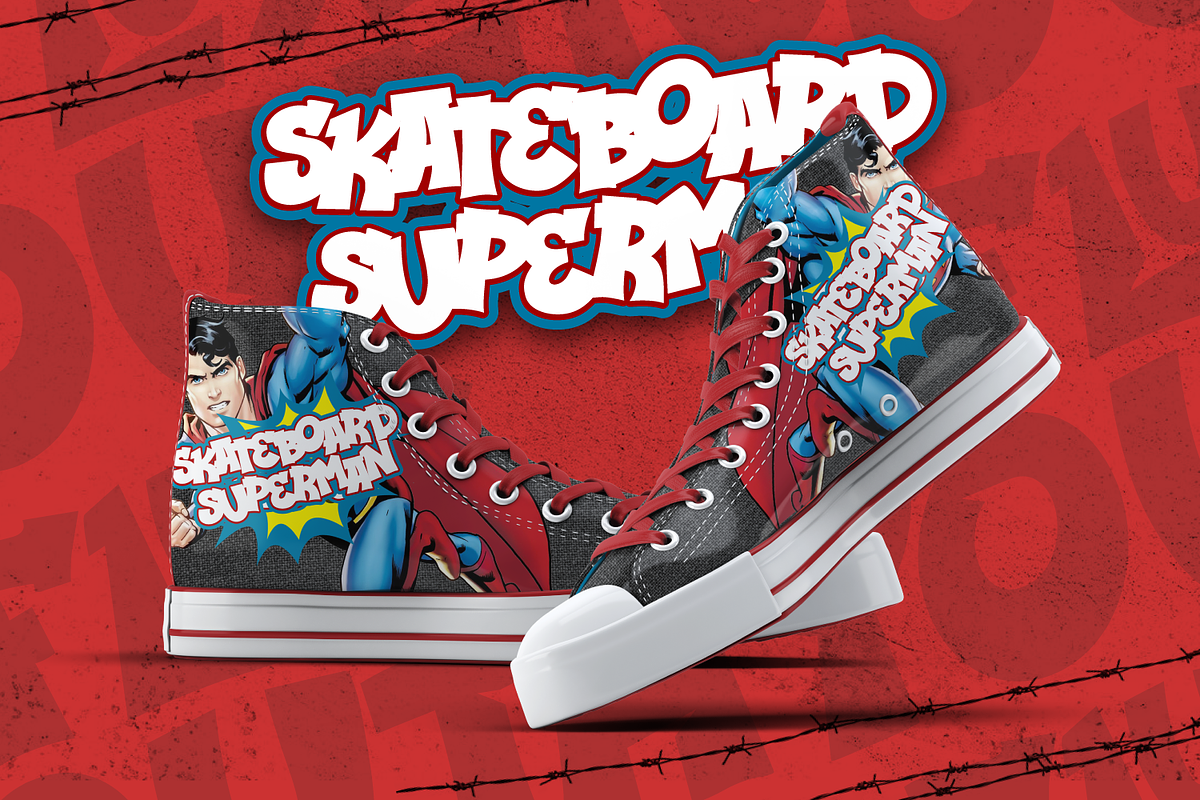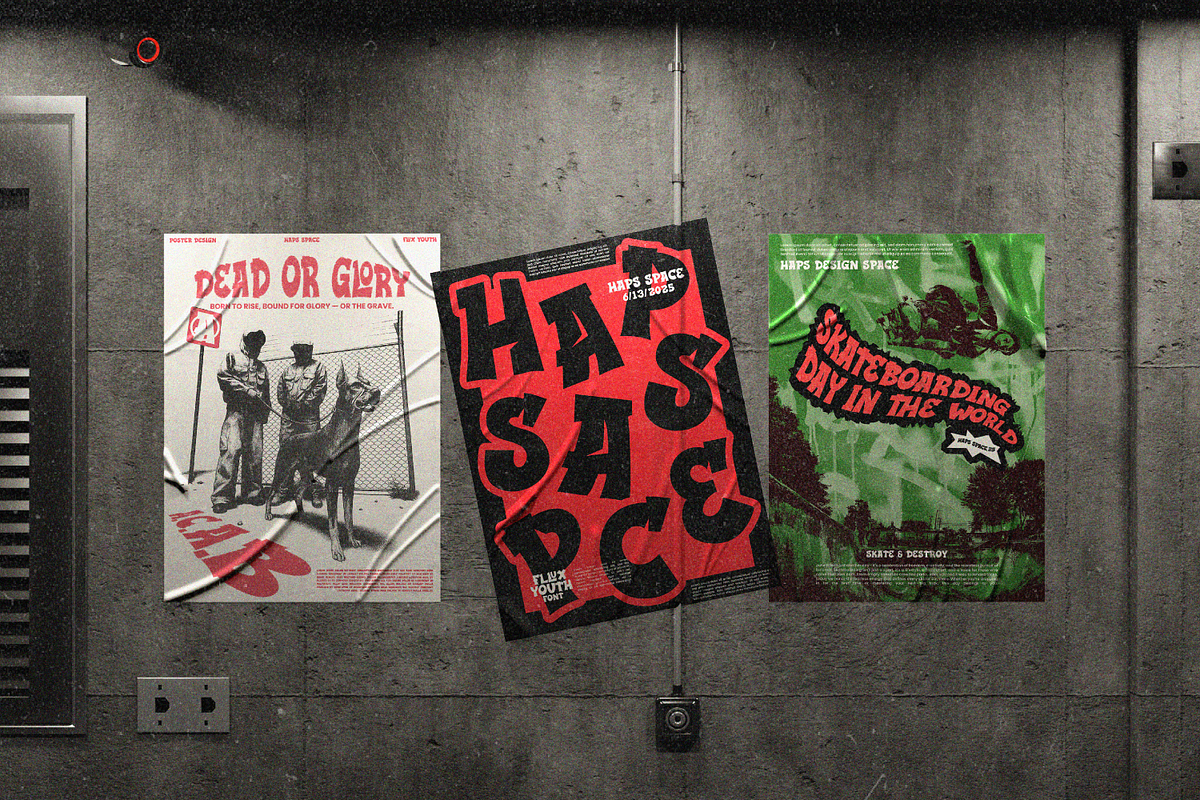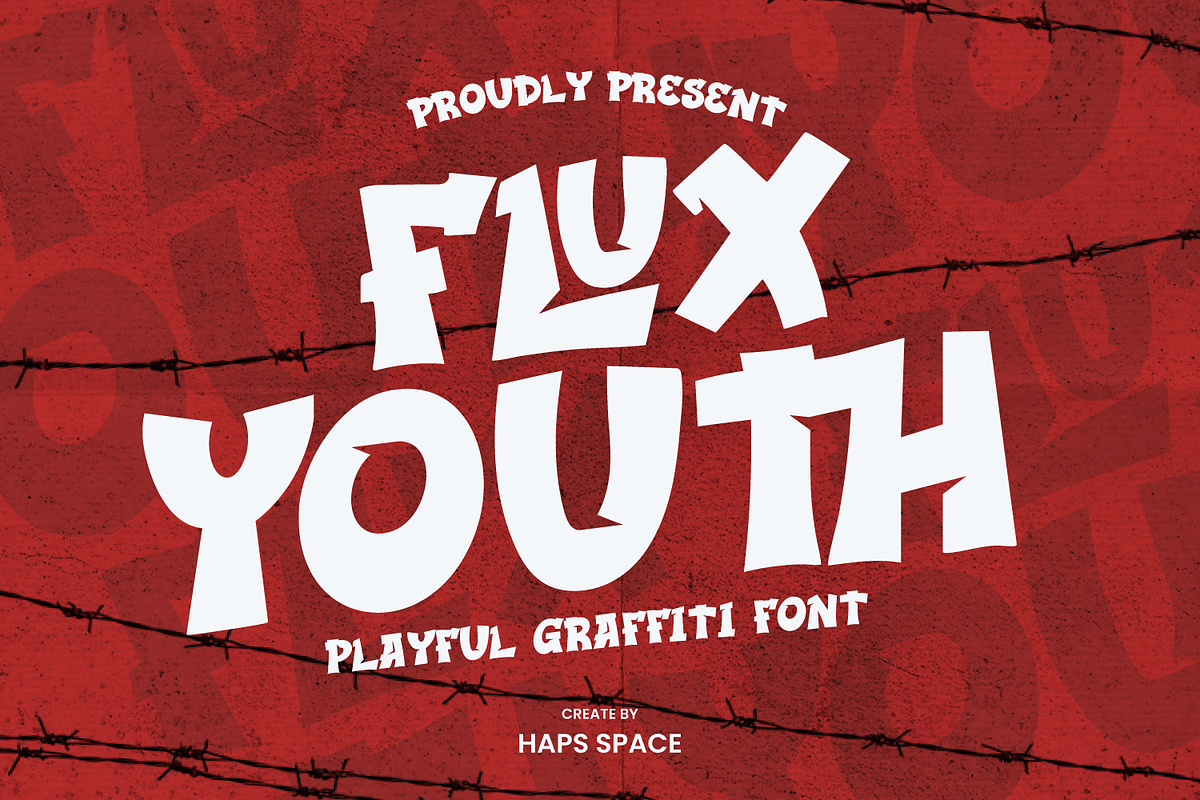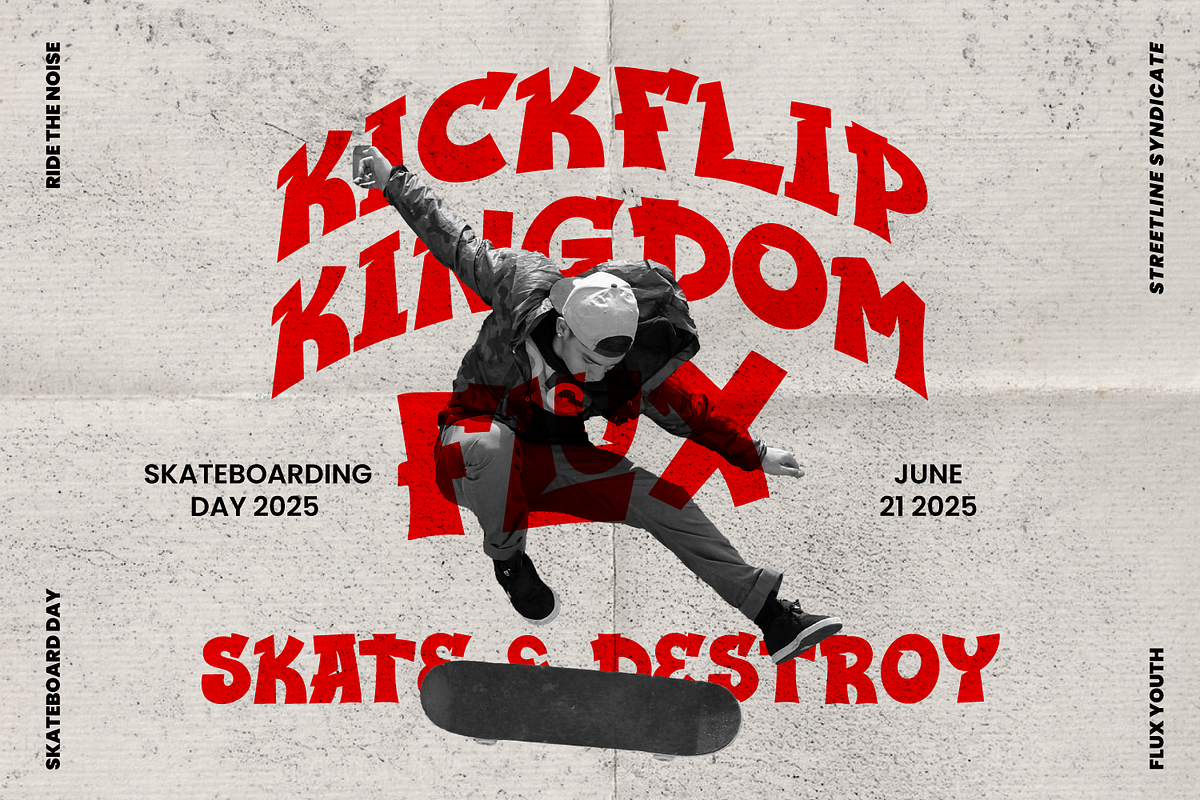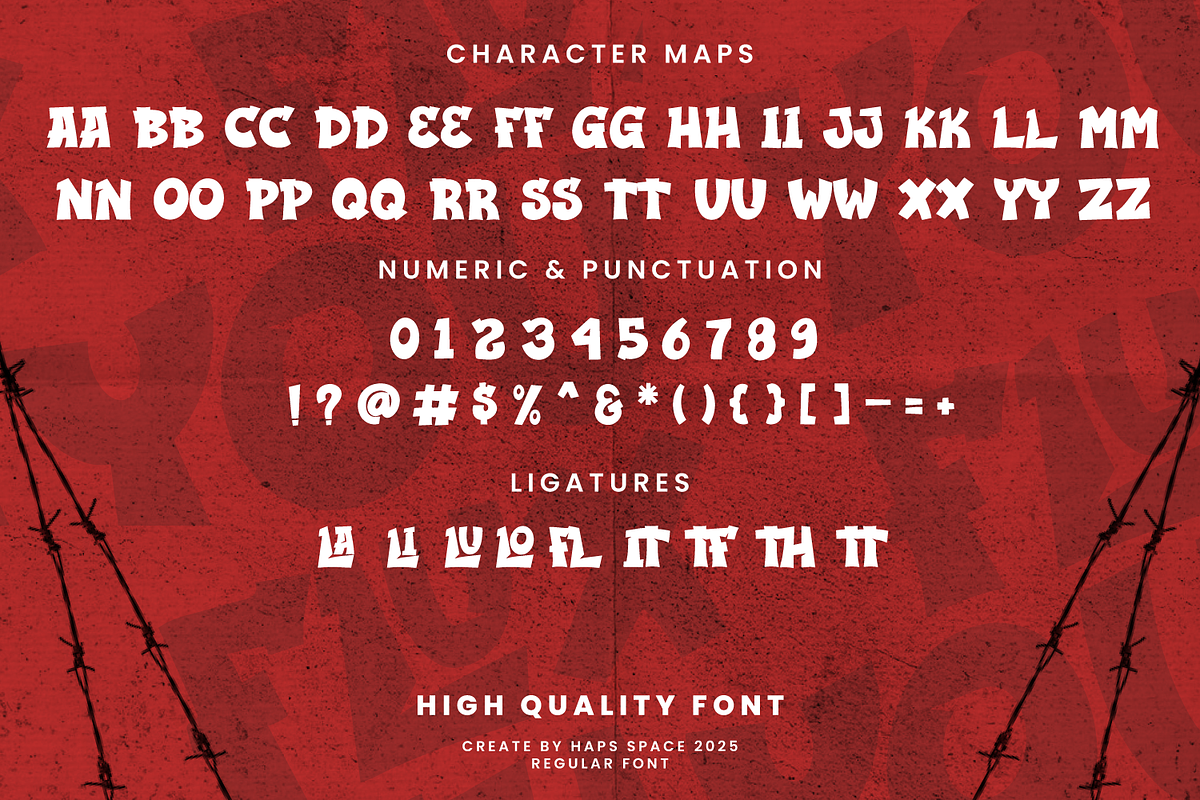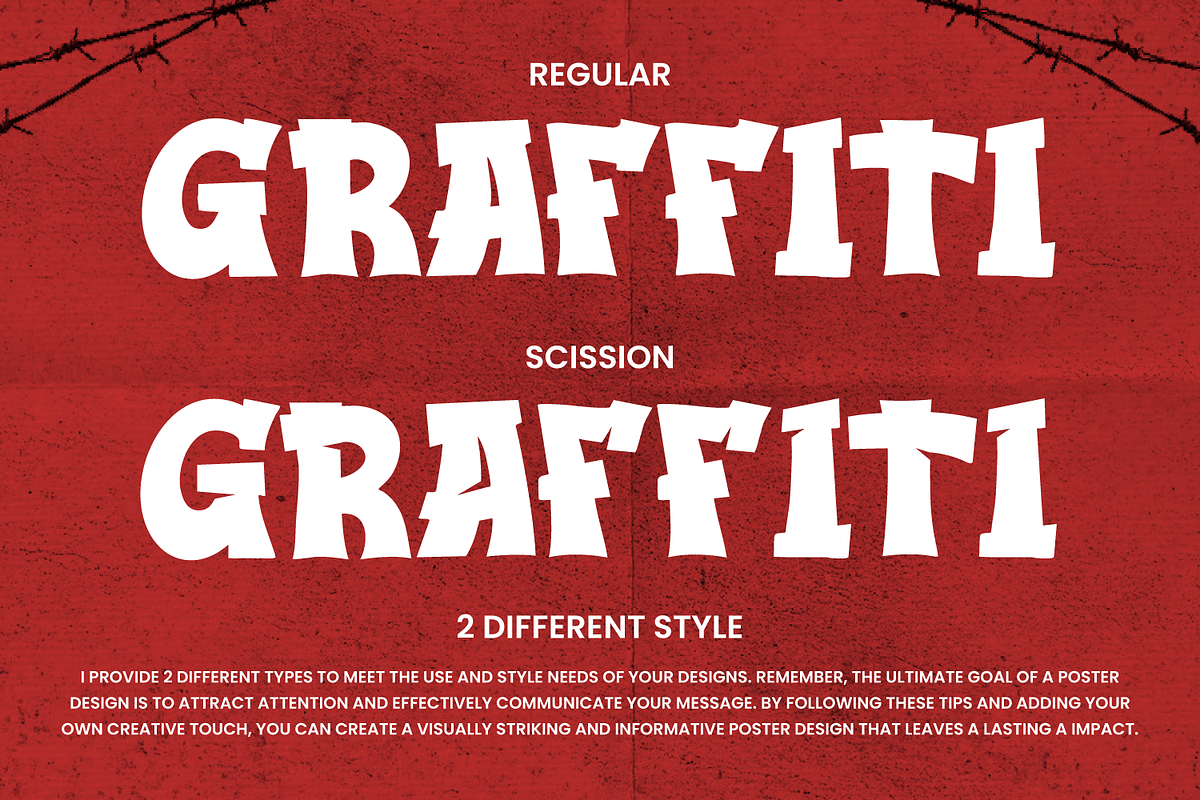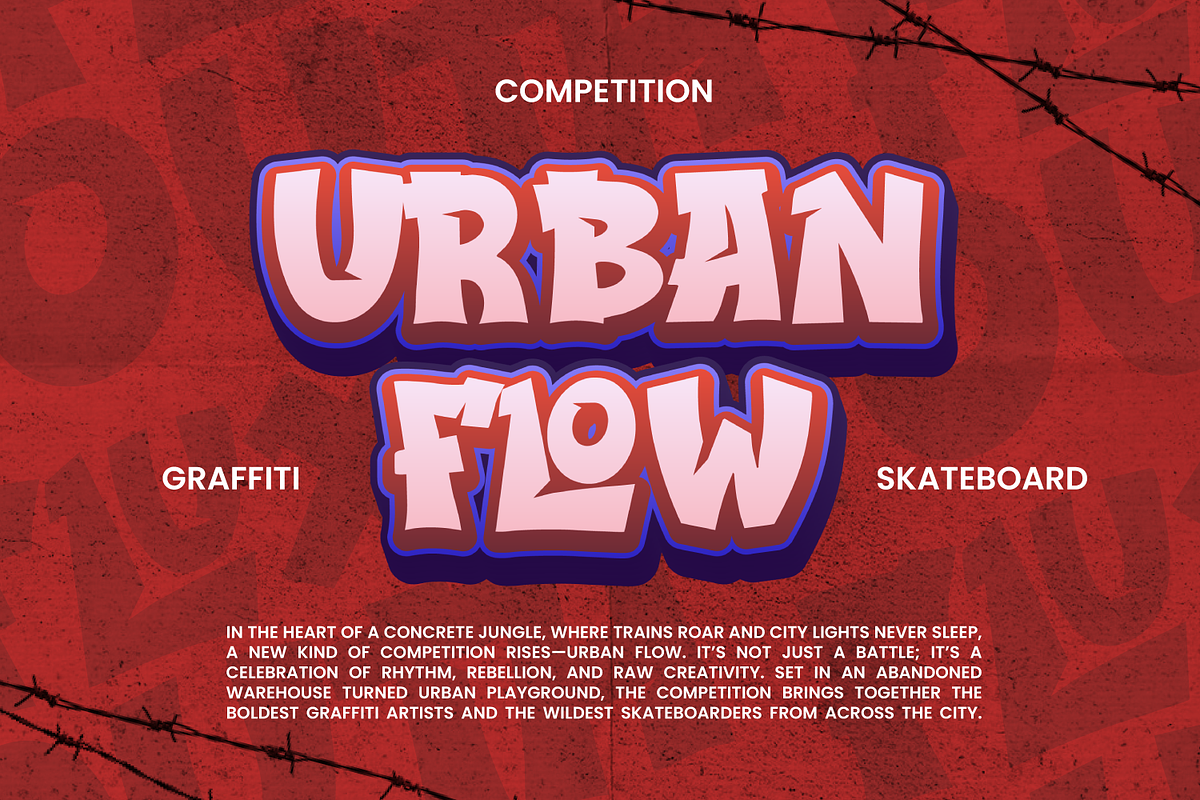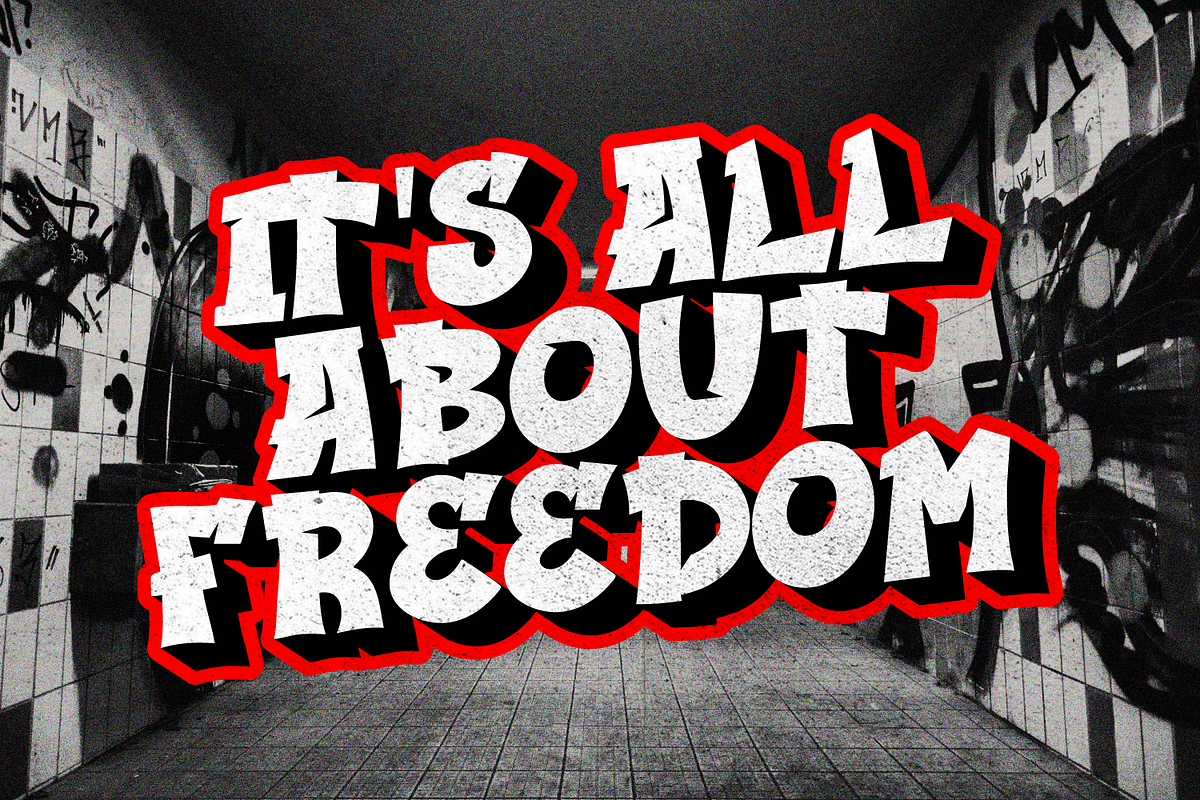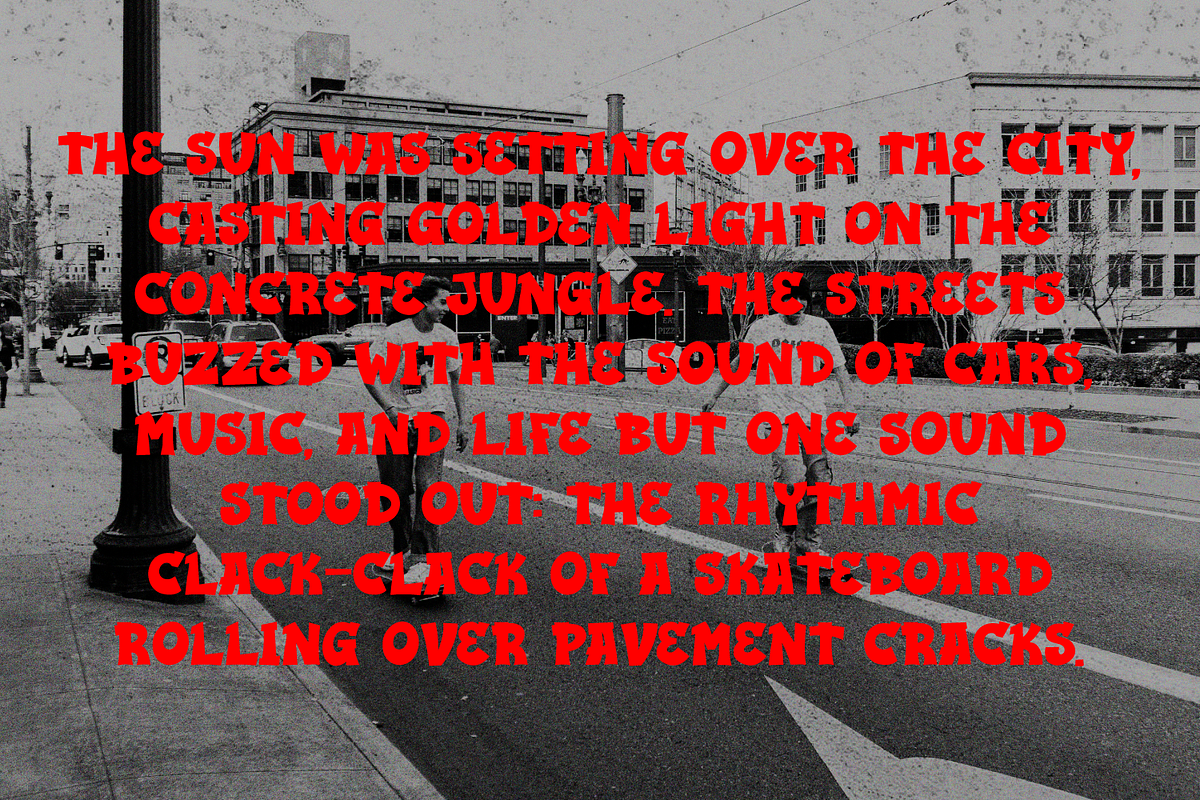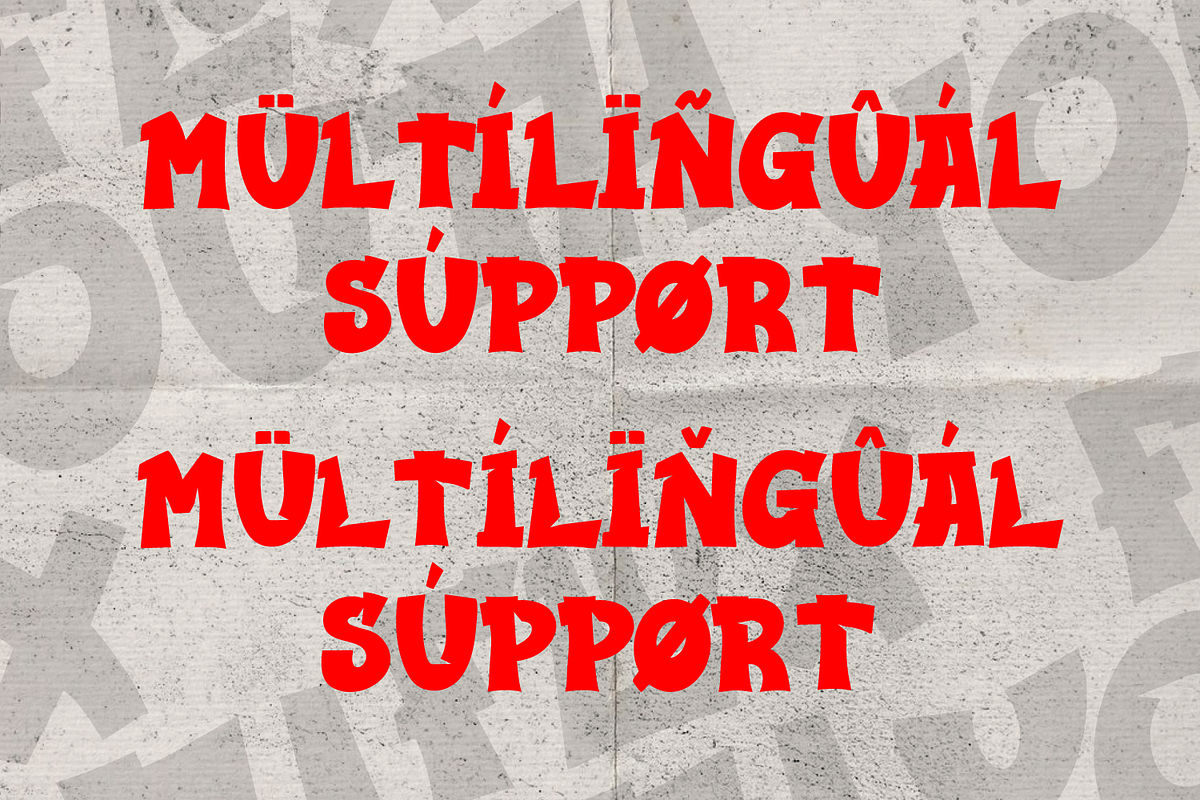
Flux Youth Playful Graffiti
Flux Youth is a bold and rebellious display font inspired by urban graffiti culture. It features edgy, irregular shapes with a playful twist, making it perfect for streetwear branding, poster art, music covers, and bold youth-targeted designs.
This font embodies movement and raw expression—ideal for designers looking to bring energetic, youthful vibes into their work. Its fun character alternates and street-art feel make Flux Youth stand out in both digital and print formats.
Ideal For:
- Street art-inspired posters
- Skate and streetwear branding
- Hip hop music designs
- Urban merchandise
- Youth community event materials
- YouTube thumbnails and covers